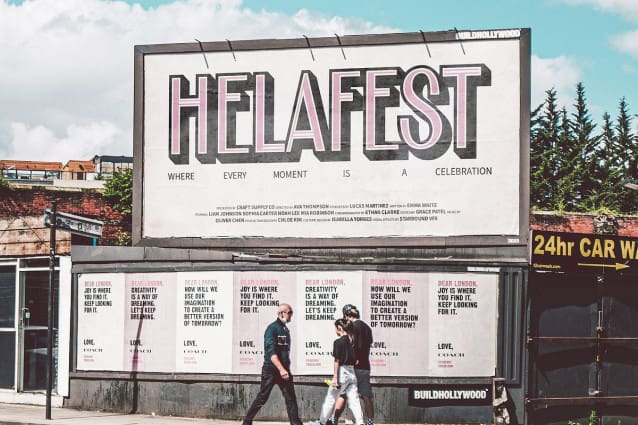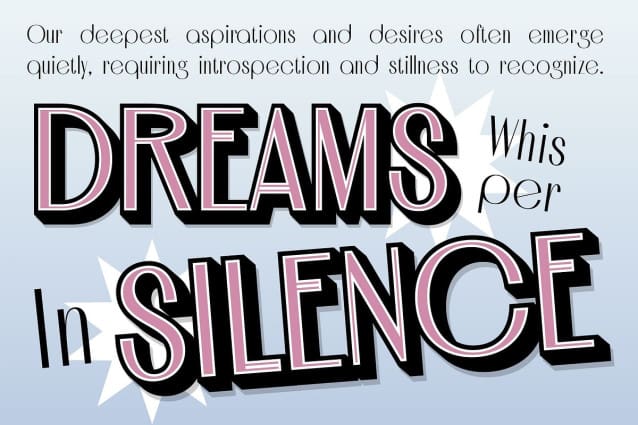
Celesia 3D Font
Celesia 3D Font is a modern sans serif font that showcases clean and sharp geometric shapes, embodying a contemporary and professional impression. Its design is characterized by simple yet proportional lines that enhance readability while simultaneously capturing attention. This balance of clarity and visual intrigue makes Celesia 3D an ideal choice for a wide range of design applications. Whether used for headlines or body text, this font stands out with an air of sophistication that suits both corporate and creative environments.
Enhancing Visual Appeal with 3D Effect The addition of a striking 3D effect elevates Celesia beyond typical sans serif fonts, granting it depth and dimension that enhances its visual appeal. This three-dimensional quality allows the font to interact with light and shadow, creating a dynamic visual experience that draws the viewer’s eye. The 3D effect not only adds a sense of movement but also contributes to the modern aesthetic, making it a captivating option for both print and digital formats.
Ideal for Branding and Marketing Materials Celesia 3D is perfectly suited for branding designs, posters, and marketing materials that strive to create a modern and innovative impression. Its contemporary look is versatile enough to adapt to various industries, from technology to fashion, ensuring that your message is delivered with clarity and style.